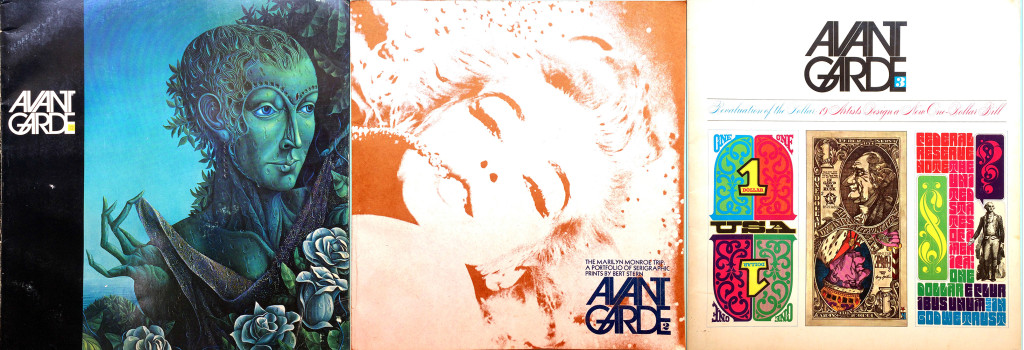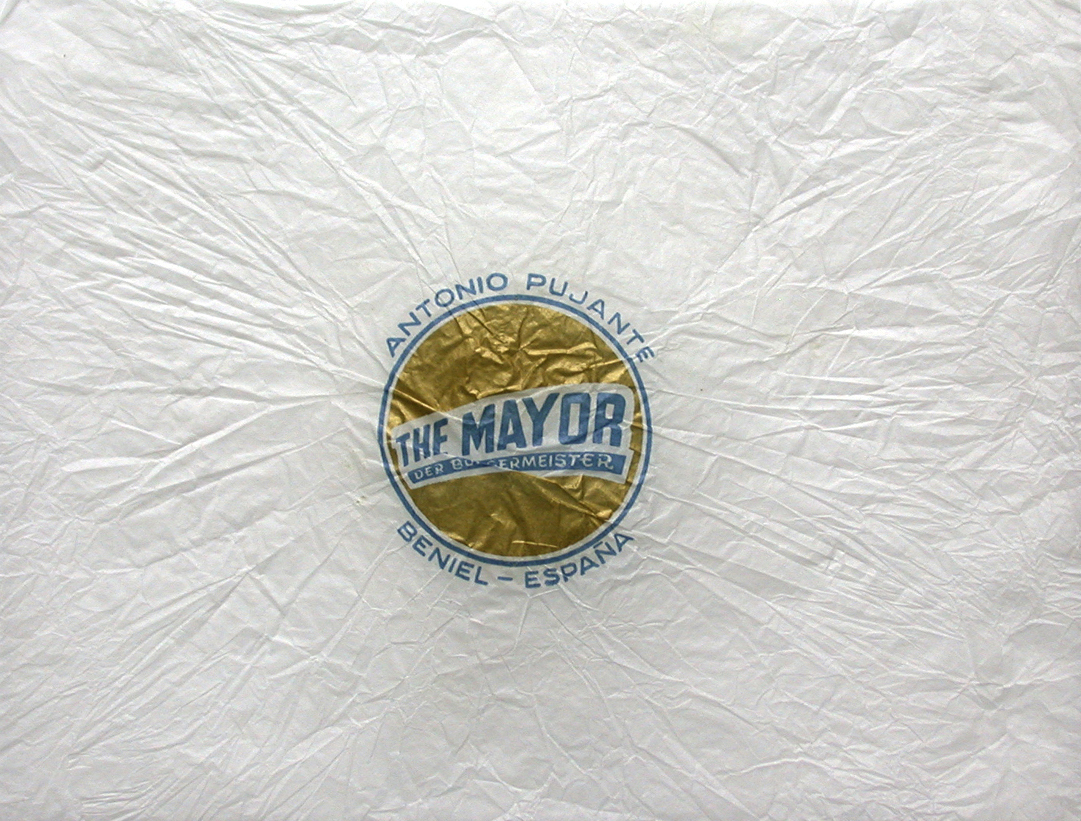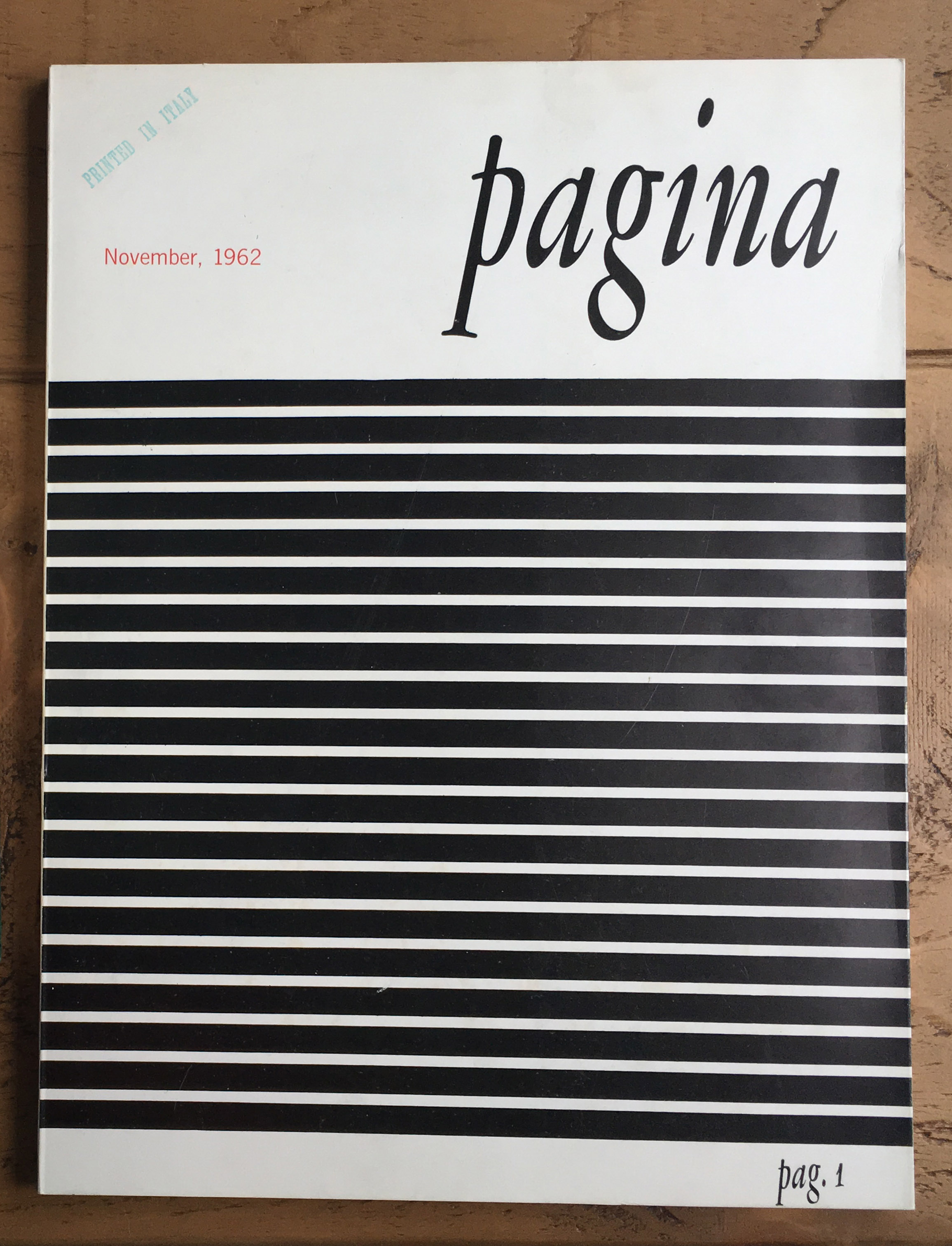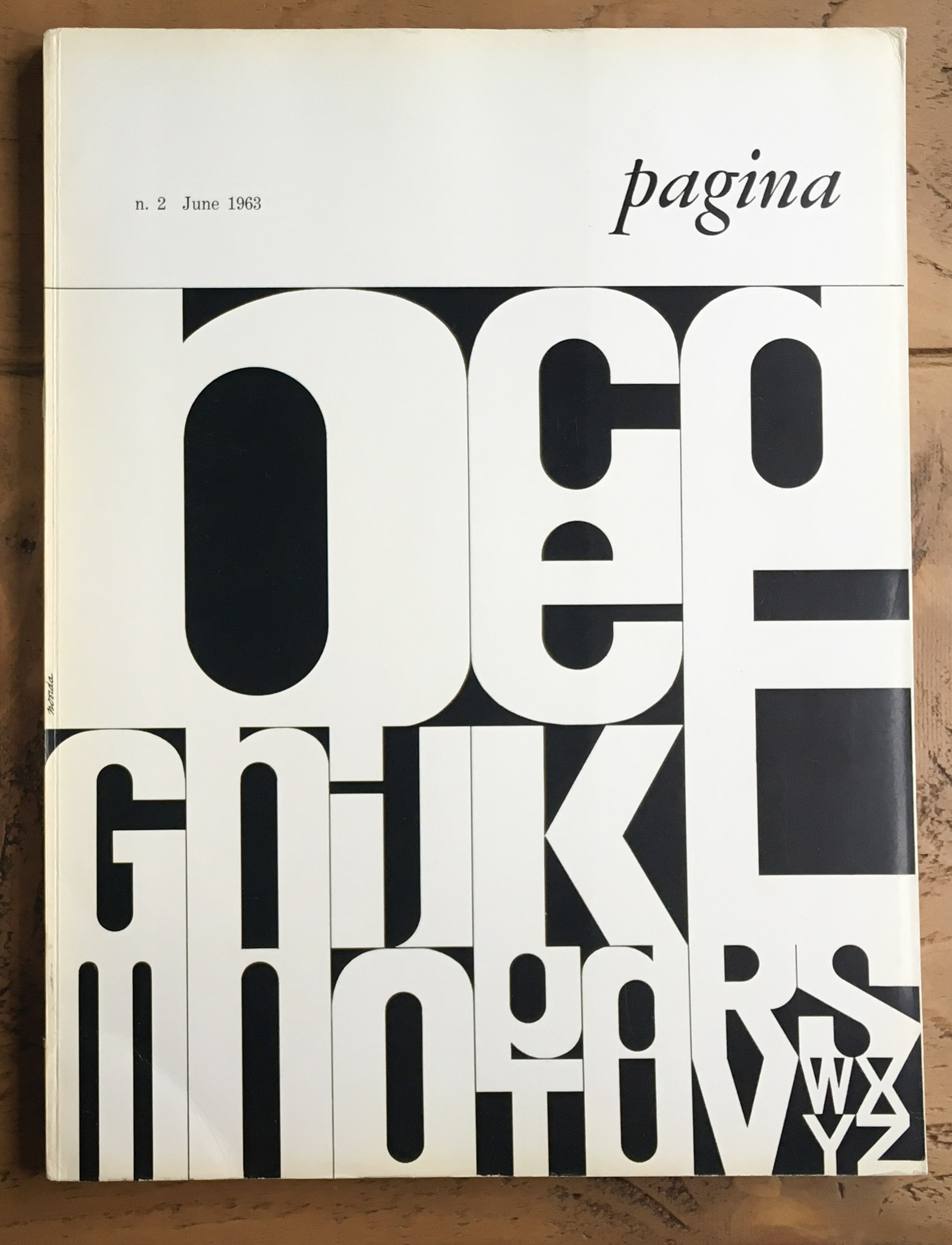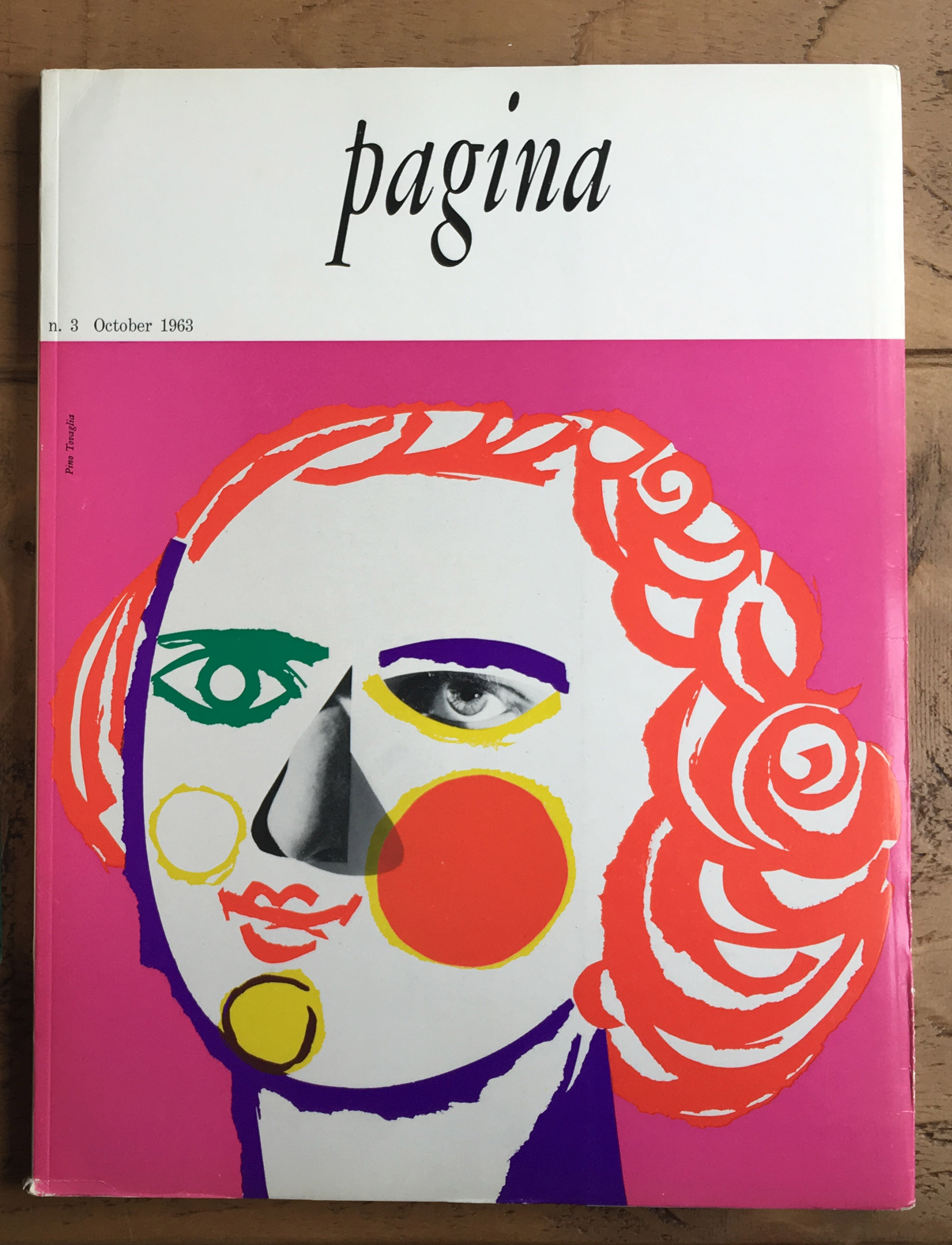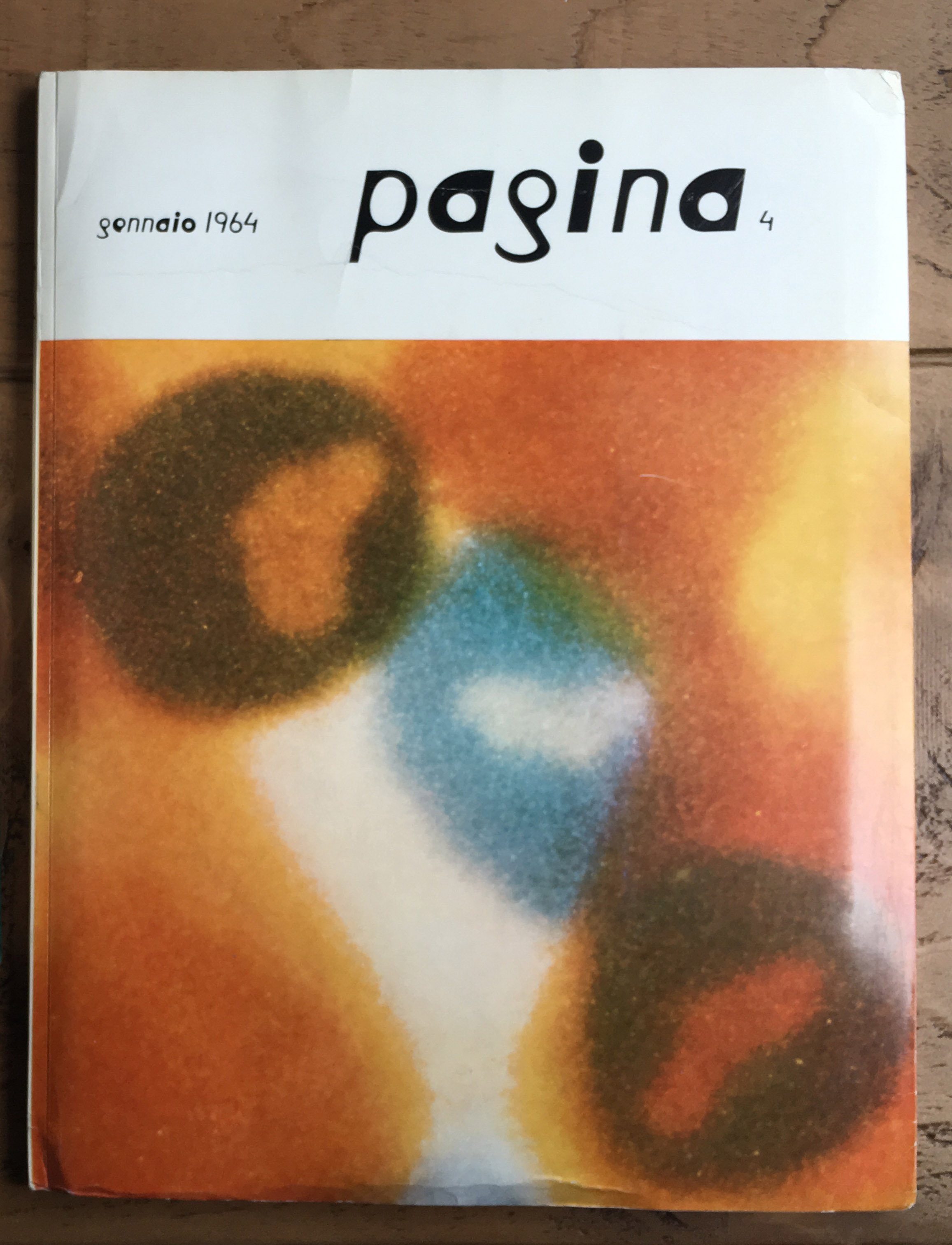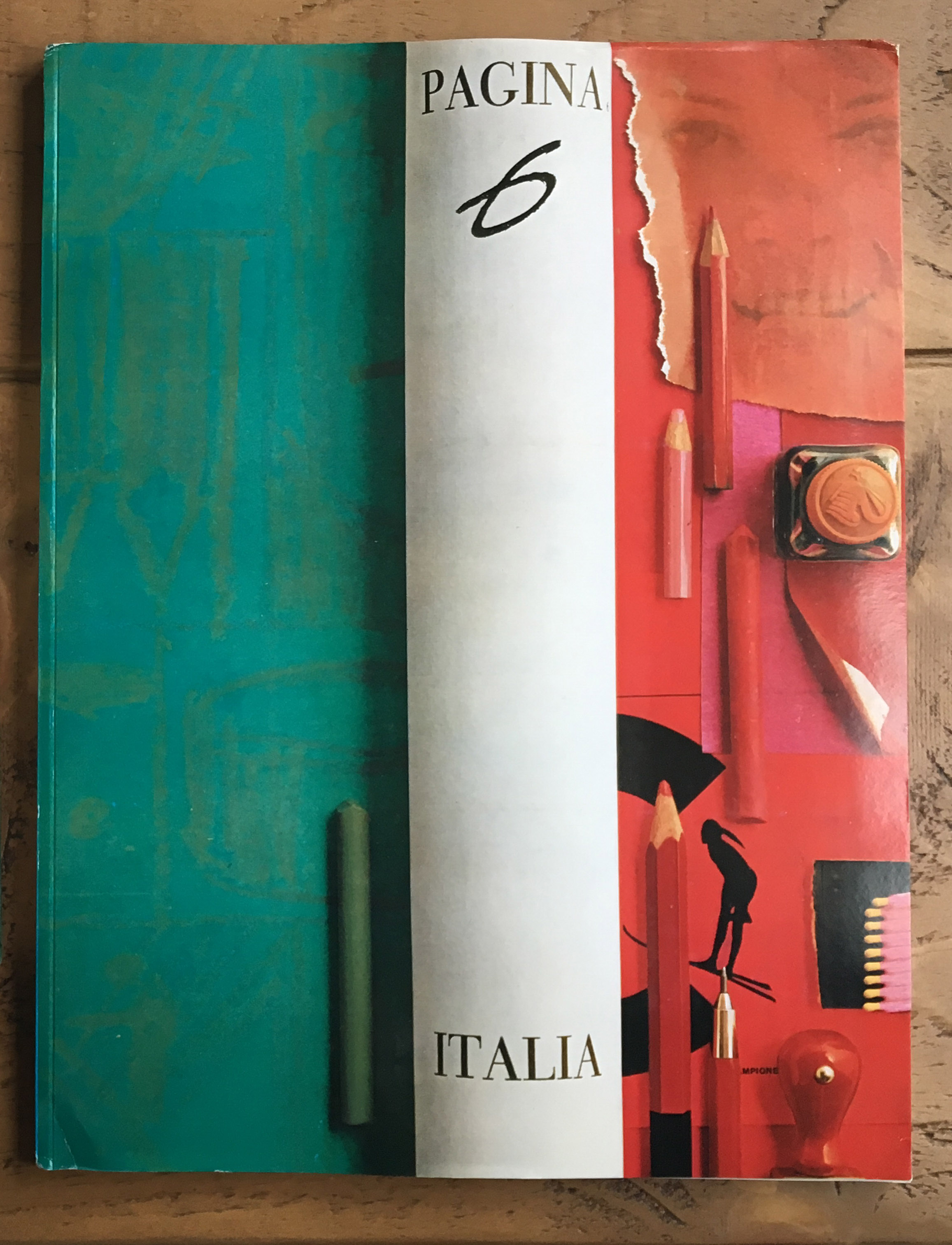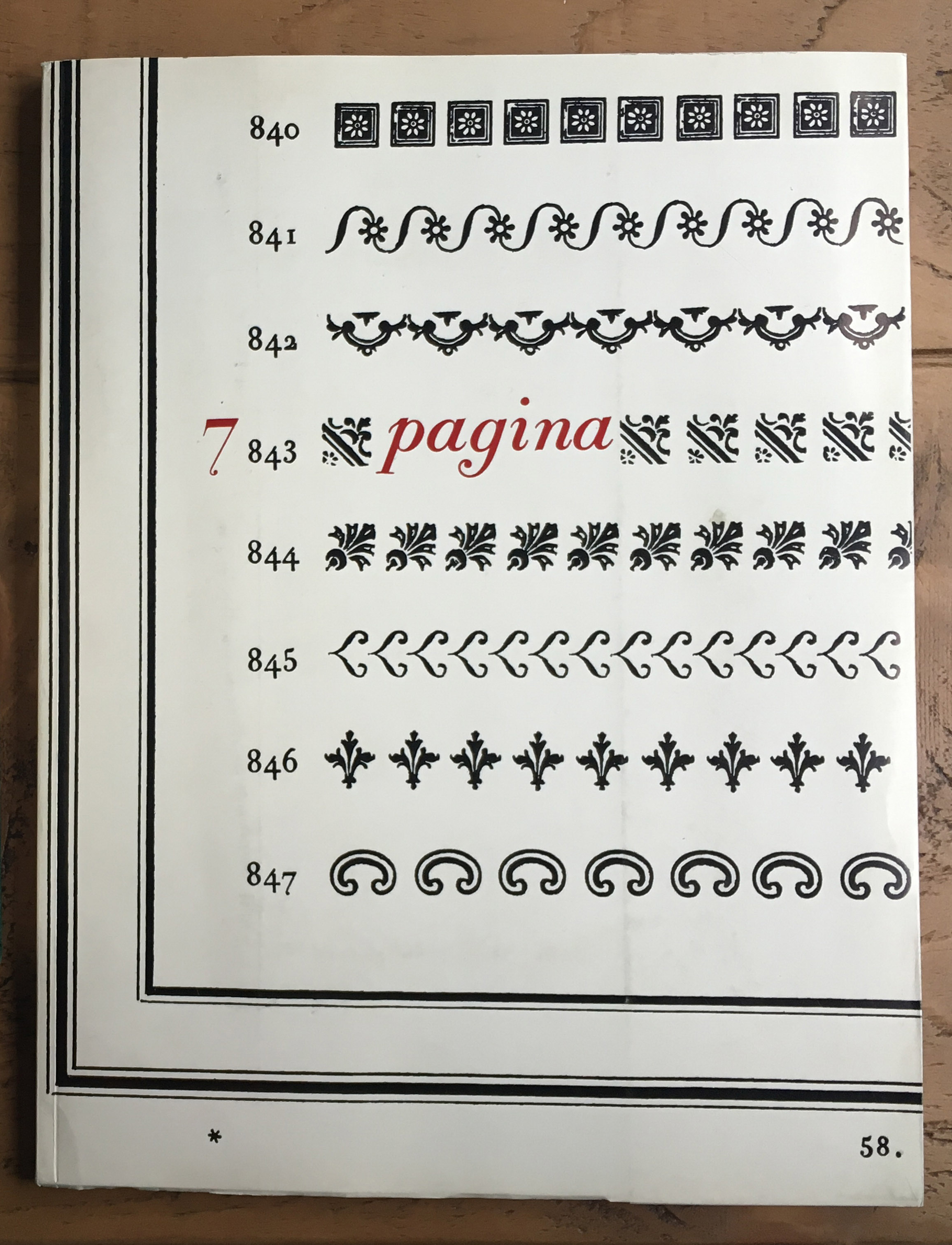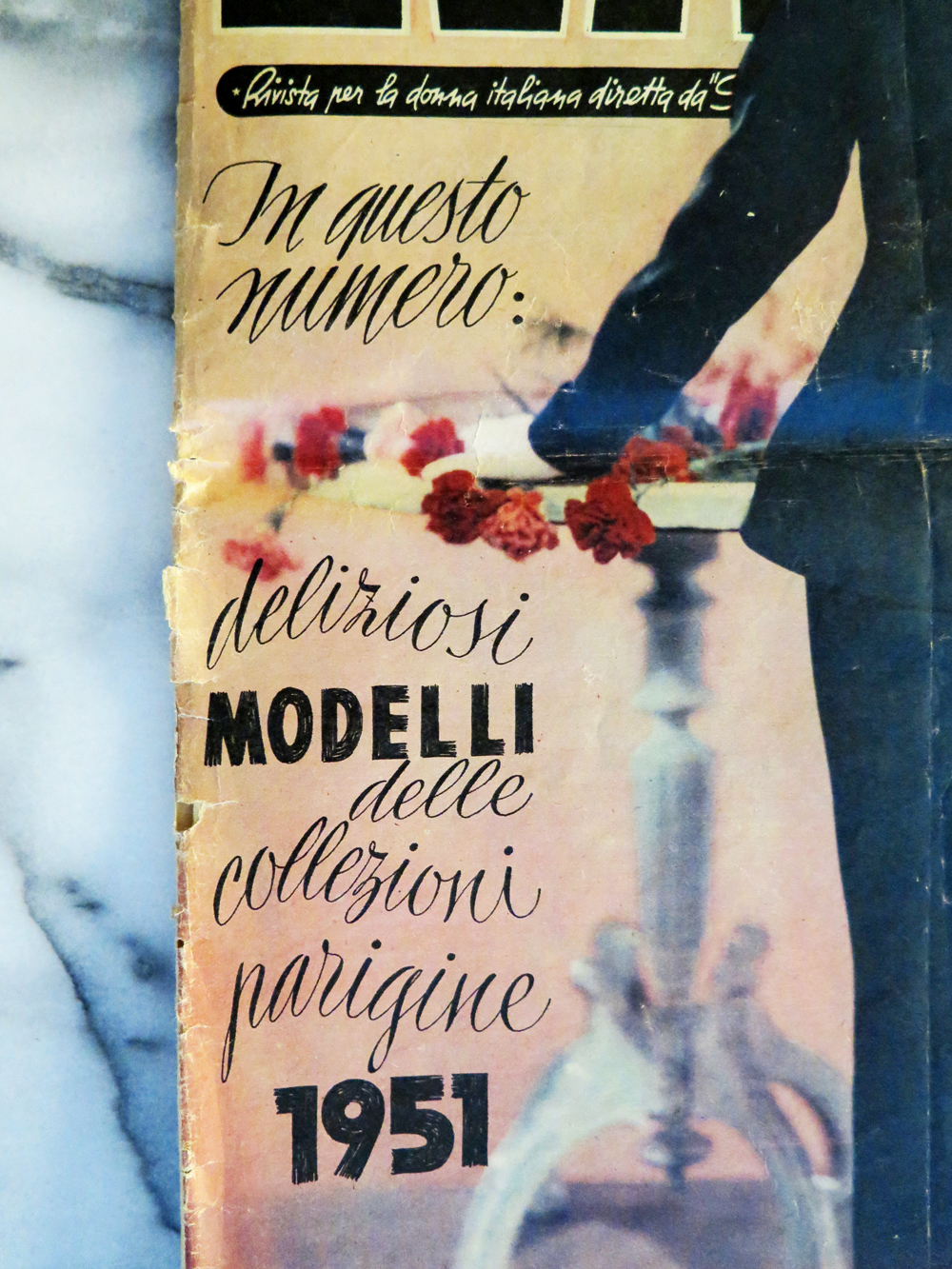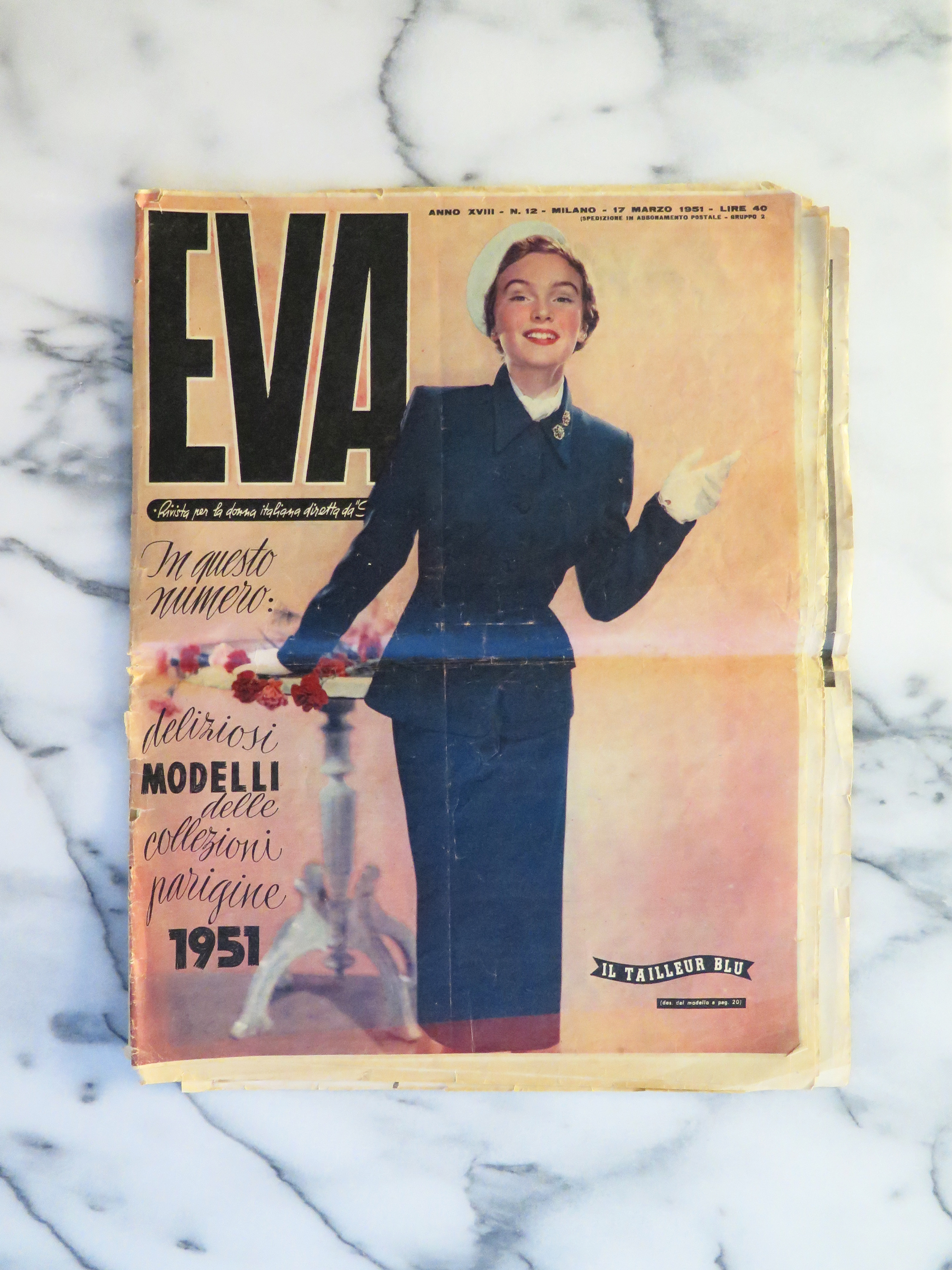
Luisa Loves (Erm… Kind Of) Rio’s Old Acrylic Signs
A hardware store in Copacabana.
Love is a strong word, but I’ll admit I have a fondness for them. In truth, I grew up in Rio and I can’t say I ever paid much attention to this kind of acrylic signs. Now, having lived in London for almost a decade, whenever I visit I stay with family in an upper-class neighbourhood where they hardly exist. A few days ago I went to the grittier neighbourhood of Copacabana and had an almost Proustian experience as I found myself surrounded by these old signs; with their cheap plastic appearance and soft edges, they formed the typographic landscape of my childhood. Although I can’t say they are exactly beautiful, I suddenly found them oddly charming. They were the letterforms of local popular commerce in 1980s Rio, the letterforms of hardware stores, florists, barbers and fishmongers, cheap-looking and anonymous, often considered ugly and vulgar. Today they are slowly disappearing, and the city doesn’t mourn the loss.
I decided to write my love letter to them, in spite of all the mixed feelings about their aesthetic value, and tried to find out more. I daydreamed about finding an old factory with stacks of old acrylic letters in different styles, dusty and forgotten…
ECS Loves Vintage Italian Fashion
I’ve long loved the vintage femininity of mid-century European fashion. The silhouettes, the careful accessorizing, and most importantly, the thousand-yard glare beaming from a heavily-lined eye have always been an inspiration to me. An old friend of mine peddles these gorgeous pieces most weekends at the Brooklyn Flea, and one weekend, she brought a stack of these Italian Fashion magazines from the 50s. This one, Eva, is from 1951 and features a scripty lettering that perfectly matches the clothing’s aesthetic: custom, curvy, sharp and stabby at just the right points.
The cover features a few different lettering styles, but what mostly grabbed my attention was the script. It’s used throughout the issue, and creates a nice ‘voice’ for many of the headlines.
Alessia Loves Pagina
After graduating from the MA in Typeface Design at the University of Reading, I decided to buy myself a present: all the seven issues of Pagina.
Pagina is an international graphic design magazine, published from 1962 until 1966 in Milan by Editoriale Metro S.p.A, with quarterly (but very irregular) releases. Each of the seven issues was published in Italian, French and English, the layout was designed by Heinz Will while the covers were handled by different designers. The articles inside the magazine included authors such as Leo Lionni, Armando Testa, Bruno Munari, Saul Bass and Albe Steiner (just to mention a few).
The first three issues of Pagina (November 1962, June 1963, October 1963).
The cover for the second issue was designed by Bob Noorda and for the third issue by Pino Tovaglia.
Pagina 4, 6 and 7 (January 1964, January 1965, April 1966). Pagina 6 is a special issue entirely dedicated to Italy. and Pagina 7 is dedicated to Giambattista Bodoni. The covers are respectively by Max Bill, who also designed the typeface on the cover, Giancarlo Iliprandi, and Franco Maria Ricci.
Jillian Loves Avant Garde Magazine
Valentine’s Day. The day of love, lust, and crushes. Maybe the first time you saw the object of your affection was across a room, at a party or a bar or on the street. Your heartbeat quickened, your palms began to get slippery, your mouth went dry … because you were in the presence of something that spoke to you, that you felt a chemical connection with, something that made you feel understood and less alone in the world. Well, that’s how I feel when I find a piece of beautiful printed type.
When you visit a flea market, there is great furniture, handmade wares, and delicious street food … and then there are the antique booths. If you’re anything like me, the paper ephemera portion of these booths create the same effect as if I was to see David Beckham across the room. Once upon a time, when I lived in Williamsburg, Brooklyn, I visited the Brooklyn Flea just to encounter such a corner of such a booth. I can’t remember exactly how the conversation began as my memory isn’t what it used to be, but I ended up in a deep conversation with the owner of the booth about some copies of Avant Garde magazine she had for sale.
Mariko Loves the Chinese Oracle Script
Shortly after my arrival in Hong Kong in the year 2010, I visited the Hong Kong Art Fair. As the name indicates, it is a commercial event, a trade fair, selling and buying art. Towards the end of walking aisle after aisle through the fair, I found myself in front of a large-sized calligraphy by the internationally acknowledged Japanese calligrapher Inoue Yuichi. My heartbeat changed, rising, and on that very same day, I decided to take calligraphy lessons.
Inoue Yuichi, 龍 (dragon), 1960. 130,5 x 180 cm
Tânia Loves Stamps
I was not one of those stamp collector kids that inherit the hobby from their grandparents. I started collecting stamps (as well as riding a bike) while studying Graphic Design in Portugal.
Where I grew up there weren’t a lot of antiques fairs, at least I don’t recall going to any. While studying at University in Caldas da Rainha there was an antiques fair at the city park every second Sunday of the month, and it was there I came across this affordable hobby.
Some of the first stamps I bought.
From left to right stamps by: Heinz Schillinger (2), Hatem El Mekhi, Willem Henri Lucas, Anthon Beeke and Otto Treumann (2)